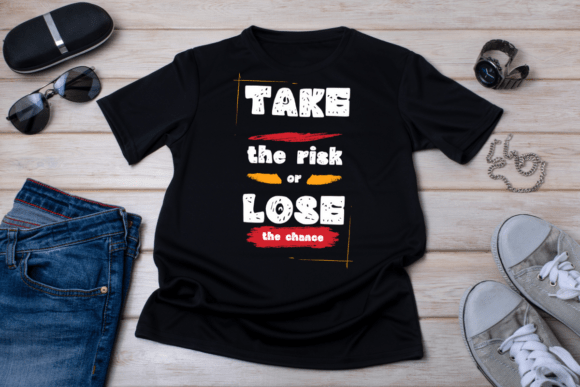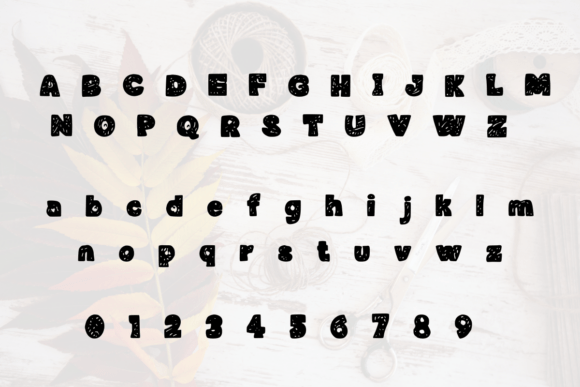
Unlock Your Creativity with the Doodlepop Font
Have you ever found yourself rummaging through your craft supplies, searching for the perfect combination of markers, colored pencils, and paper to bring your artistic vision to life? The search is over, because we’ve discovered a font that captures the essence of your creative chaos – the Doodlepop Font.
This whimsical, hand-drawn display font is designed to add a carefree, artistic touch to your designs. With its sketchy edges, uneven lines, and playful curves, the Doodlepop Font is perfect for projects that require a casual, creative vibe, such as bullet journals, digital and printable planners, scrapbooking, and kids’ projects.
Whether you’re a professional designer or a DIY enthusiast, the Doodlepop Font is a valuable addition to your toolkit, offering a unique and quirky charm that will elevate your designs and bring a smile to your clients’ faces.
Doodlepop Font Key Features
- Font Family: Doodlepop is a fun, handwritten font family that includes multiple styles and weights.
- Size and Resolution: Designed to be used at sizes ranging from 12 to 48 points, with optimal legibility at 24 points and above. Supports resolutions up to 300 DPI.
- Unique Characteristics: Features a playful, whimsical feel with subtle imperfections and irregularities, perfect for adding a touch of personality to designs.
- Style Variations: Includes multiple styles, including Regular, Italic, Bold, and Bold Italic, as well as additional swashes and flourishes for added flair.
- Language Support: Supports a wide range of languages, including Latin, Cyrillic, and Greek alphabets, making it suitable for global designs.
Doodlepop Font Review
I’ve had the chance to play around with Doodlepop Font, and here’s my honest take on this quirky font.
- Creativity Unleashed: Doodlepop Font is perfect for designers who want to add a touch of whimsy to their projects. It’s ideal for hand-drawn or illustrative designs.
- Wide Character Set: The font includes a wide range of characters, including letters, numbers, and symbols, making it a great choice for designers who need to create engaging content.
- Fun and Playful: Doodlepop Font is sure to add a smile to your design. Its playful nature makes it perfect for children’s books, advertisements, or any project that requires a lighthearted tone.
- Not Ideal for Formal Text: Due to its playful nature, Doodlepop Font is not suitable for formal text or documents where a professional tone is required.
- Limited Customization: While the font is great for its intended use, it’s not ideal for designers who need to customize the font’s appearance or make significant modifications.
Doodlepop Font is a fun and creative addition to any designer’s toolkit. While it may not be suitable for all projects, it’s perfect for designers who want to add a touch of personality to their work. With its wide character set and playful nature, it’s sure to become a go-to font for many designers.
Tips for Getting the Most Out of Doodlepop Font
To get the most out of the Doodlepop font, experiment with different font sizes, colors, and styles. You can also use it in combination with other fonts to create a unique look. Additionally, use the font in text elements that require a playful and whimsical touch.
The Doodlepop font is perfect for designs that require a playful and whimsical touch, such as:
- Children’s book covers
- Party invitations
- Food blogs
- Wedding invitations